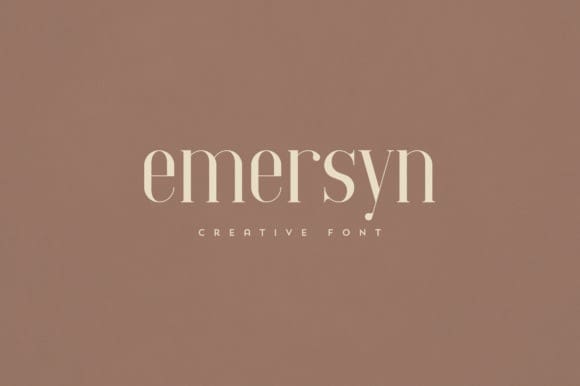
Emersyn Font
Emersyn Font is an elegant and versatile serif font that will make your typography truly unique! It will enchant every logo, branding, headline, or plain text!